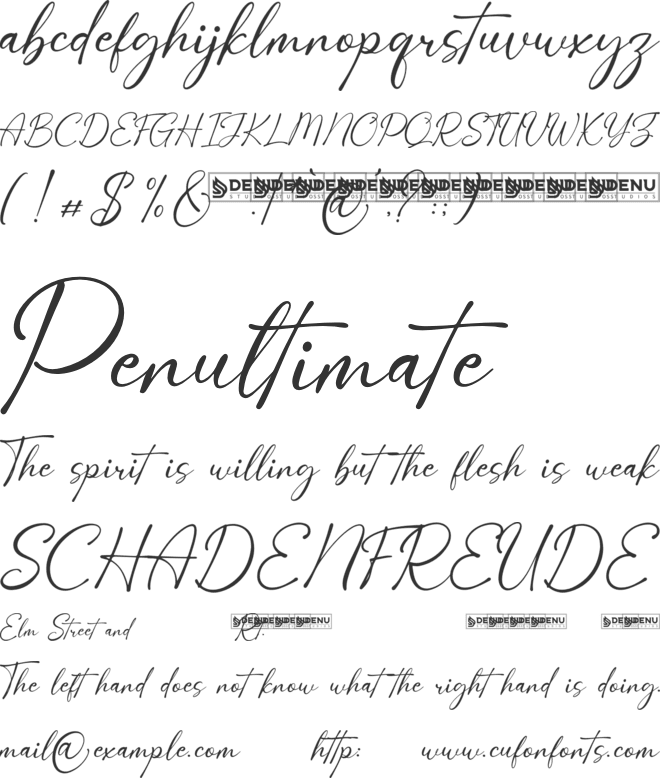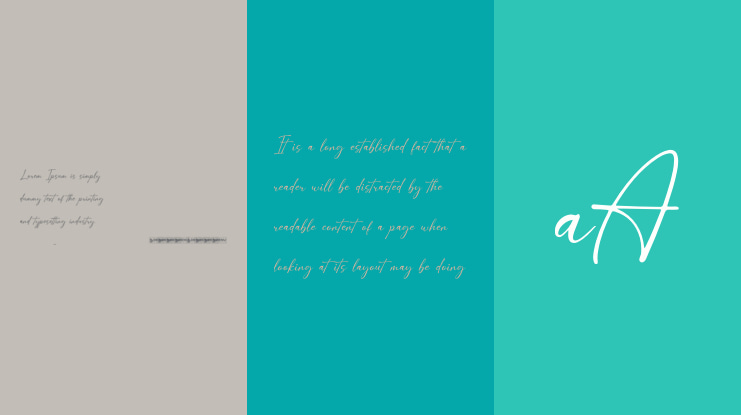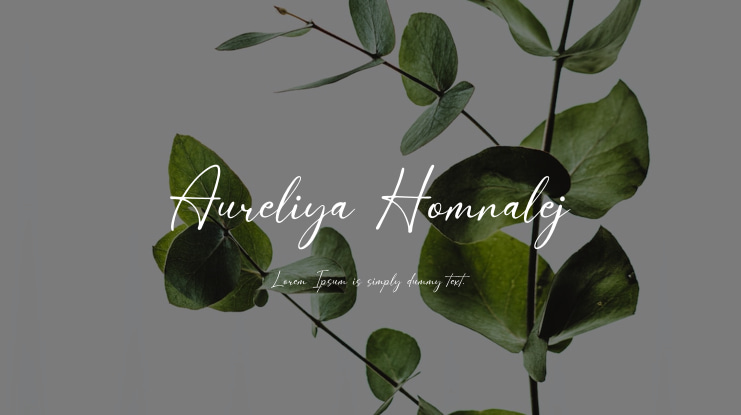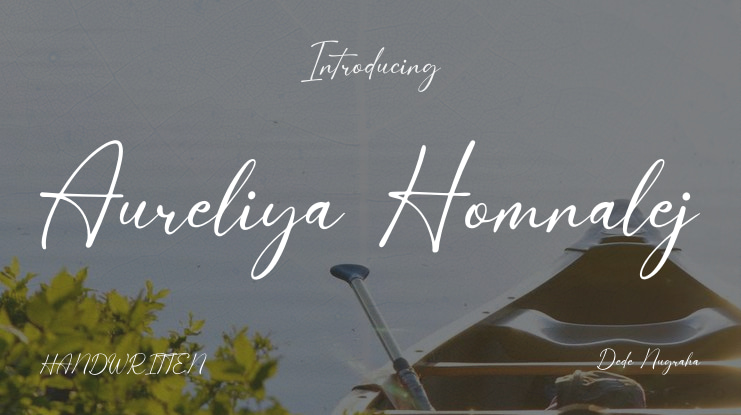
Aureliya Homnalej | Elegant Script is suitable for any projects such as: logos, branding projects, homeware designs, product packaging, mugs, quotes, posters, shopping bags, t-shirts, book covers, name card, invitation cards, greeting cards, label, photography, watermark, special events, and all your other lovely projects that need a elegantscript taste.